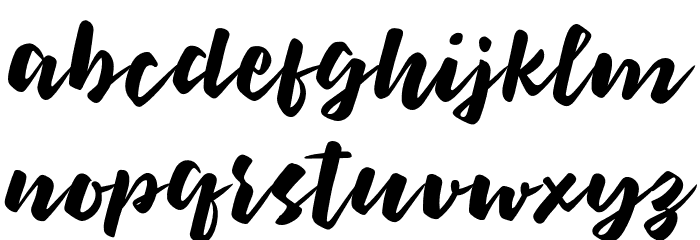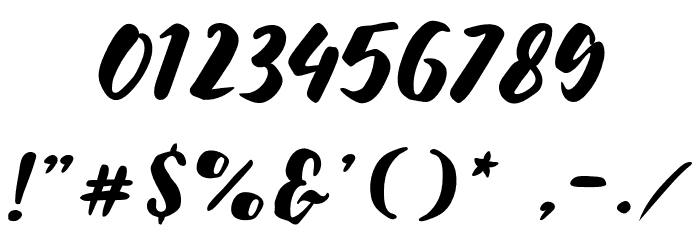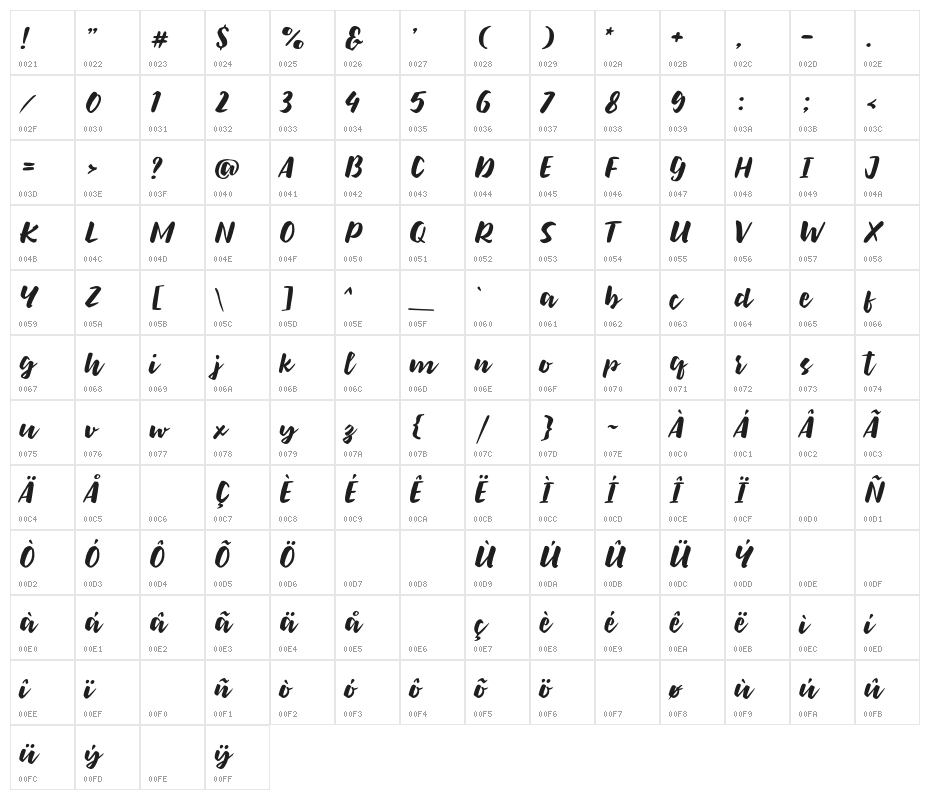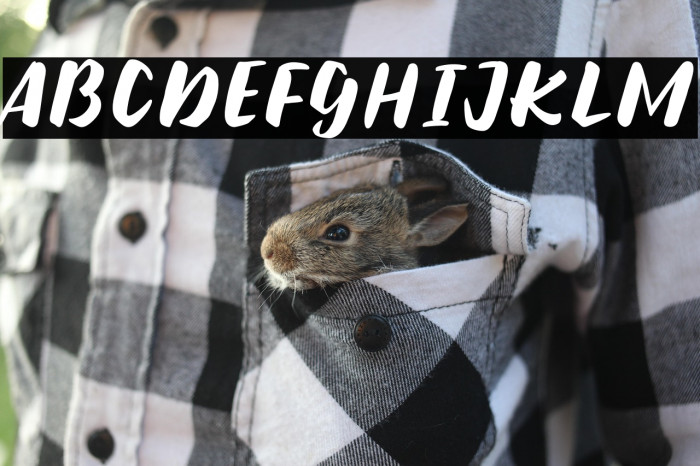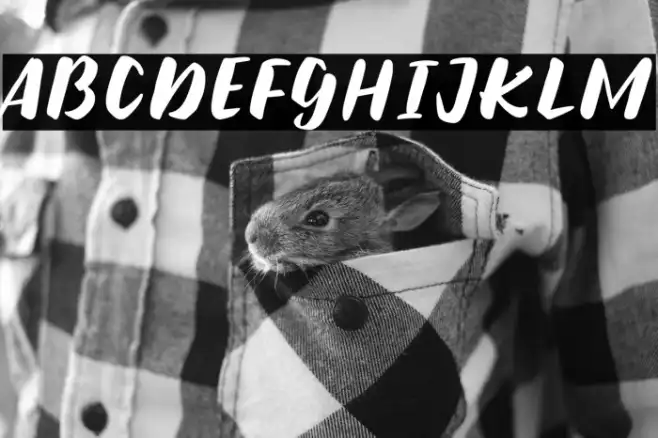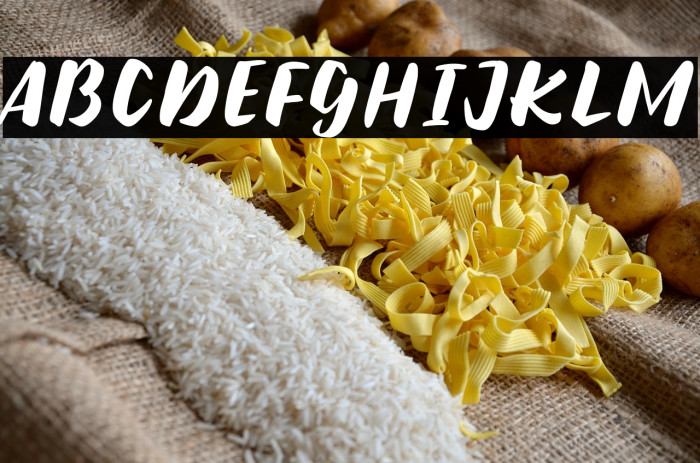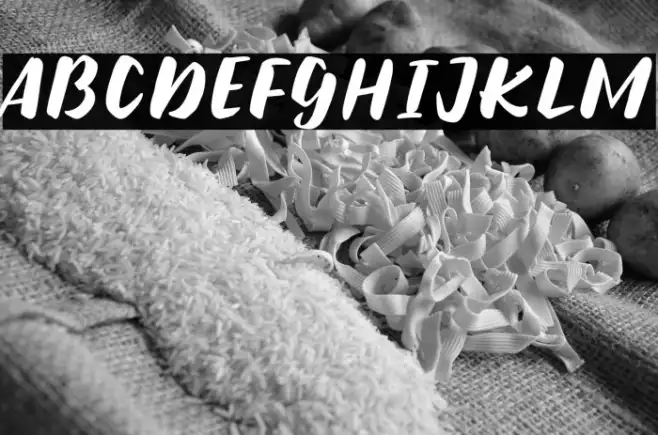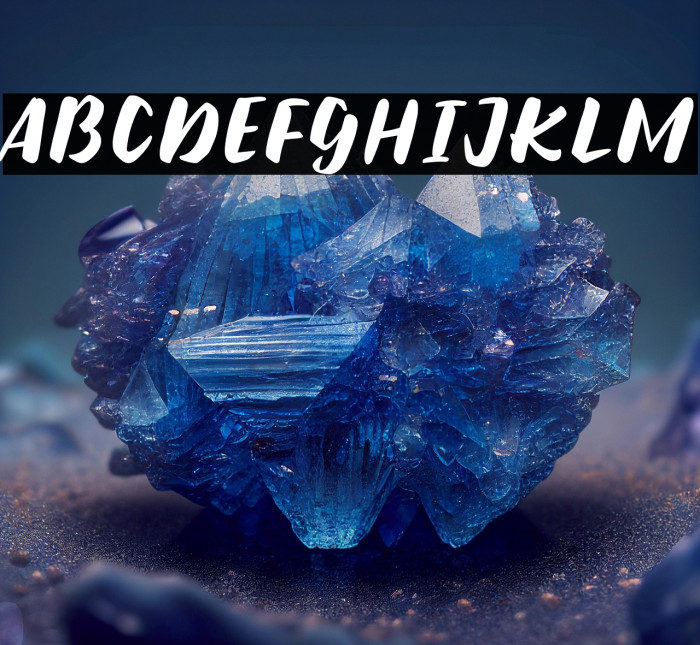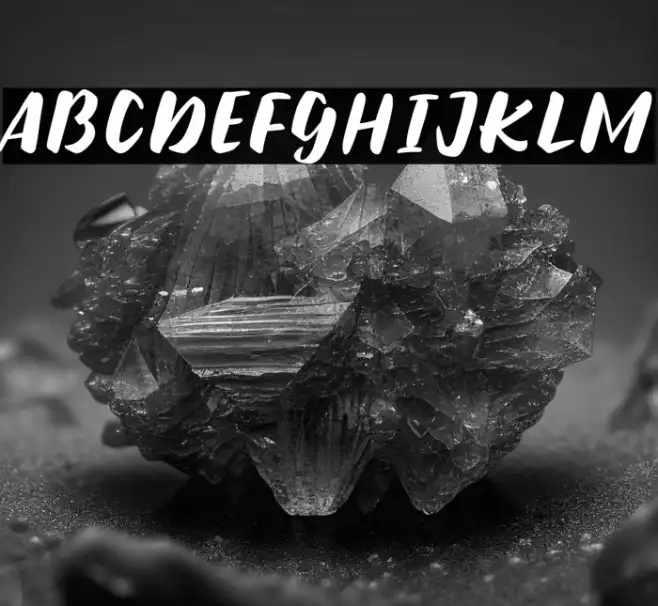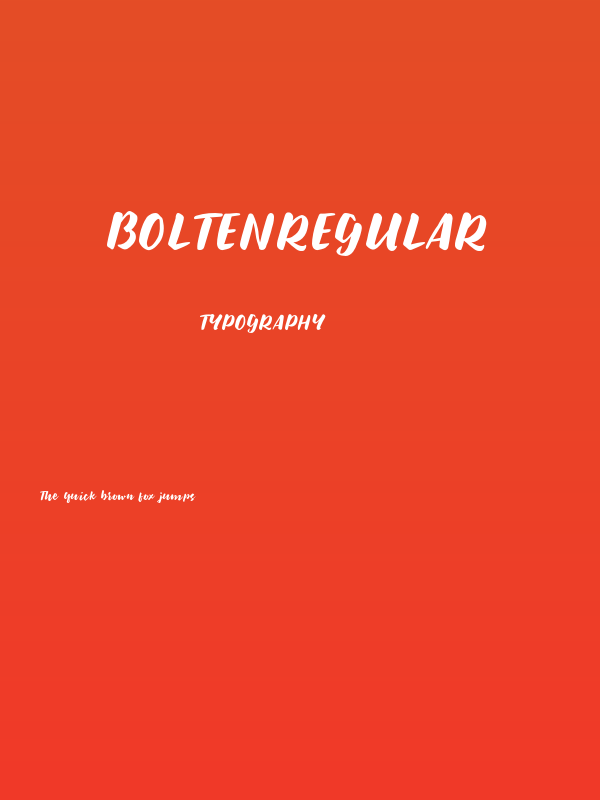
BoltenRegular Font
This font features a bold and expressive script style, characterized by its fluid and dynamic strokes. The letters are interconnected, giving a sense of continuity and flow, reminiscent of traditional calligraphy. The uppercase letters stand tall with a slight slant, while the lowercase letters maintain a consistent rhythm, enhancing readability. The numerals and special characters are crafted with the same attention to detail, ensuring a cohesive look across all text. The overall appearance is both elegant and modern, making it suitable for a variety of design applications.
A bold, expressive script font with fluid, interconnected strokes.
- Font: BoltenRegular
- Proposed Projects: Ideal for branding, invitations, greeting cards, and decorative headlines.
- Category: Script
- Use Case: Logos, Headlines, Invitations